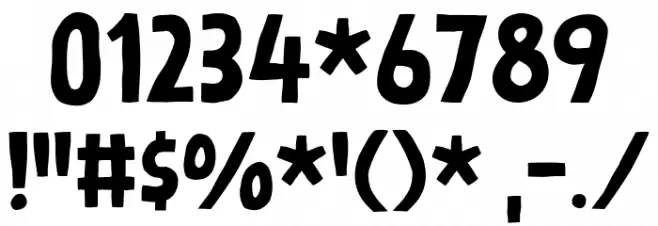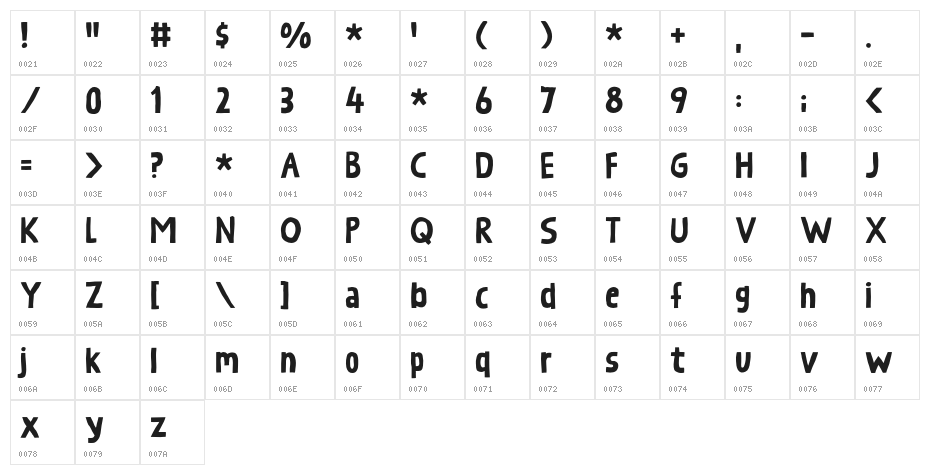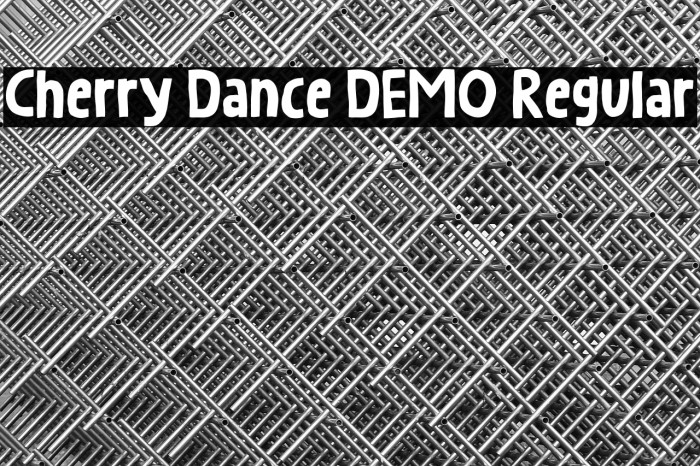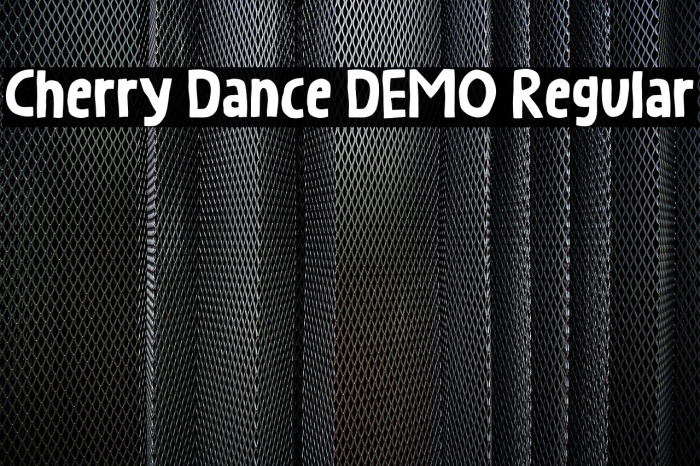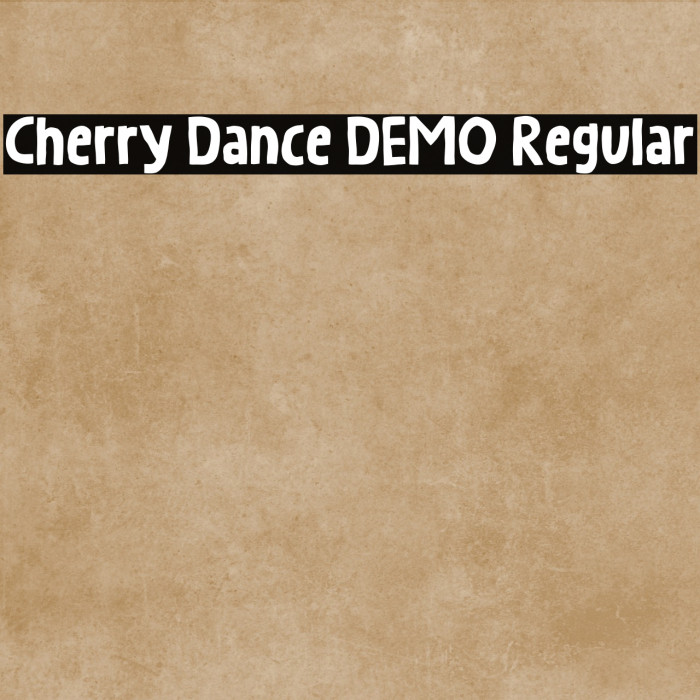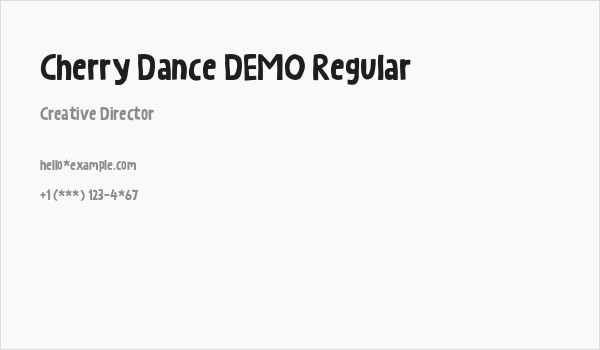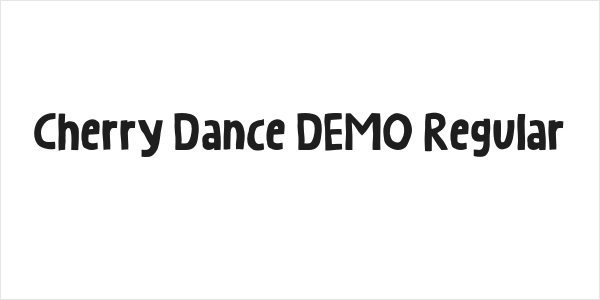
Cherry Dance DEMO Regular Font
Cherry Dance DEMO Regular Description
This playful and dynamic font features bold, uneven strokes that give it a hand-drawn, whimsical appearance. The characters are slightly irregular, adding to its charm and making it stand out in any design. The uppercase and lowercase letters maintain a consistent style, with a slight tilt that adds movement and energy. Numbers and special characters are crafted with the same playful touch, ensuring a cohesive look across all text elements. This font is perfect for projects that require a fun and informal tone.
| Overall Style | Playful, Whimsical |
| Proposed Projects | Ideal for children's books, playful branding, creative posters, and informal invitations. |